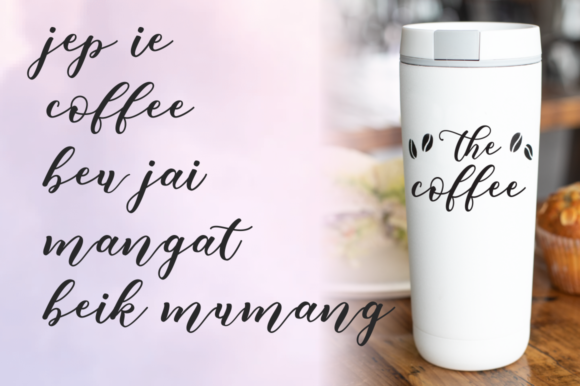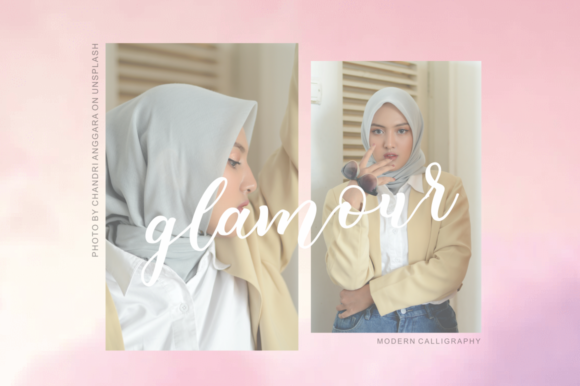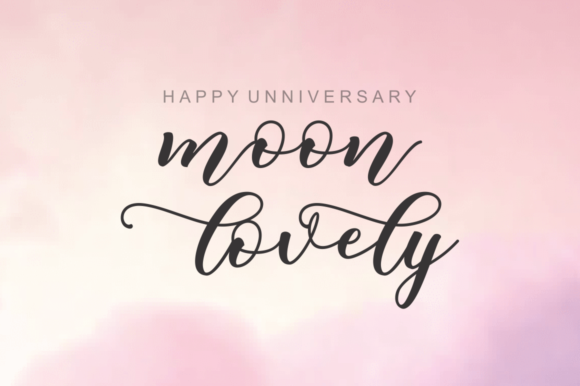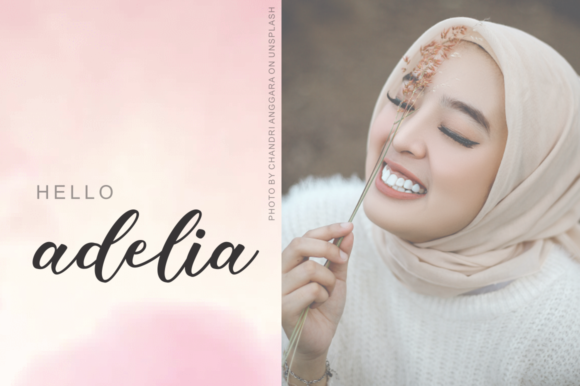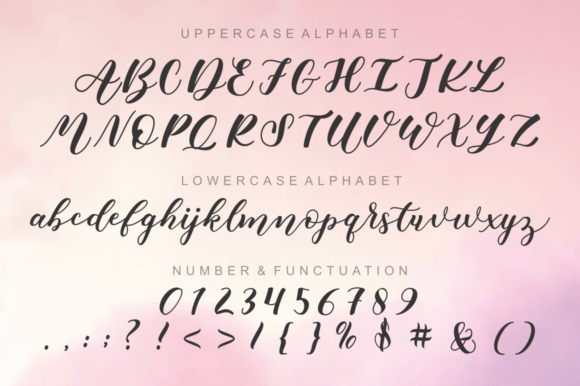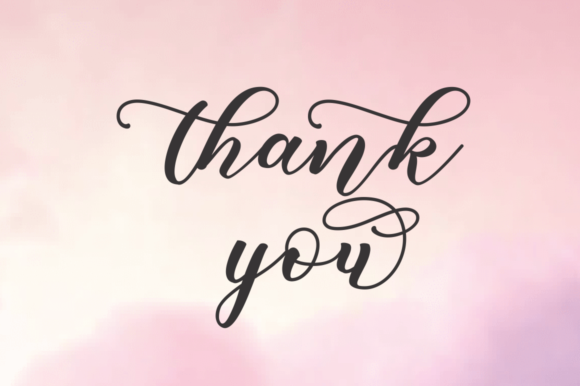
Adelia Font
About Adelia Font
Adelia is a stylish and incredibly elegant script font. It looks stunning on wedding invitations, thank you cards, quotes, greeting cards, logos, business cards and every other design which needs a handwritten touch. This font is PUA encoded which means you can access all of the glyphs and swashes with ease!